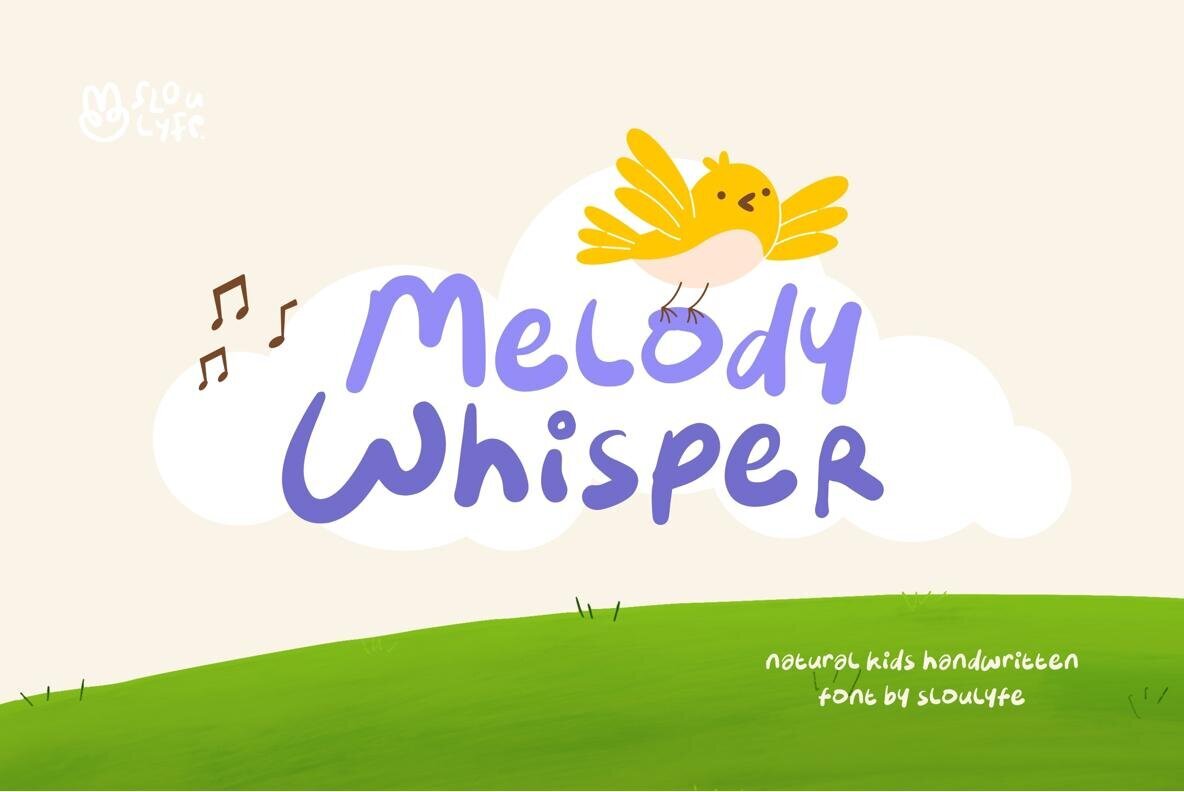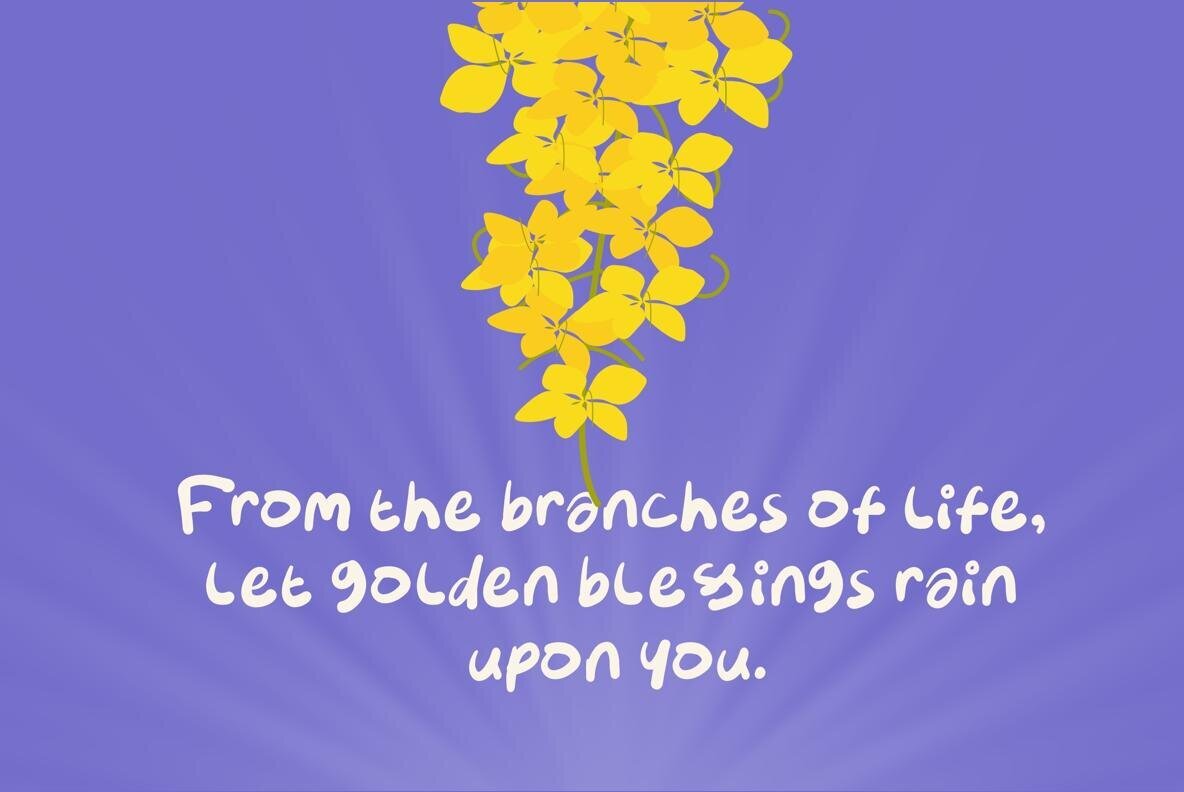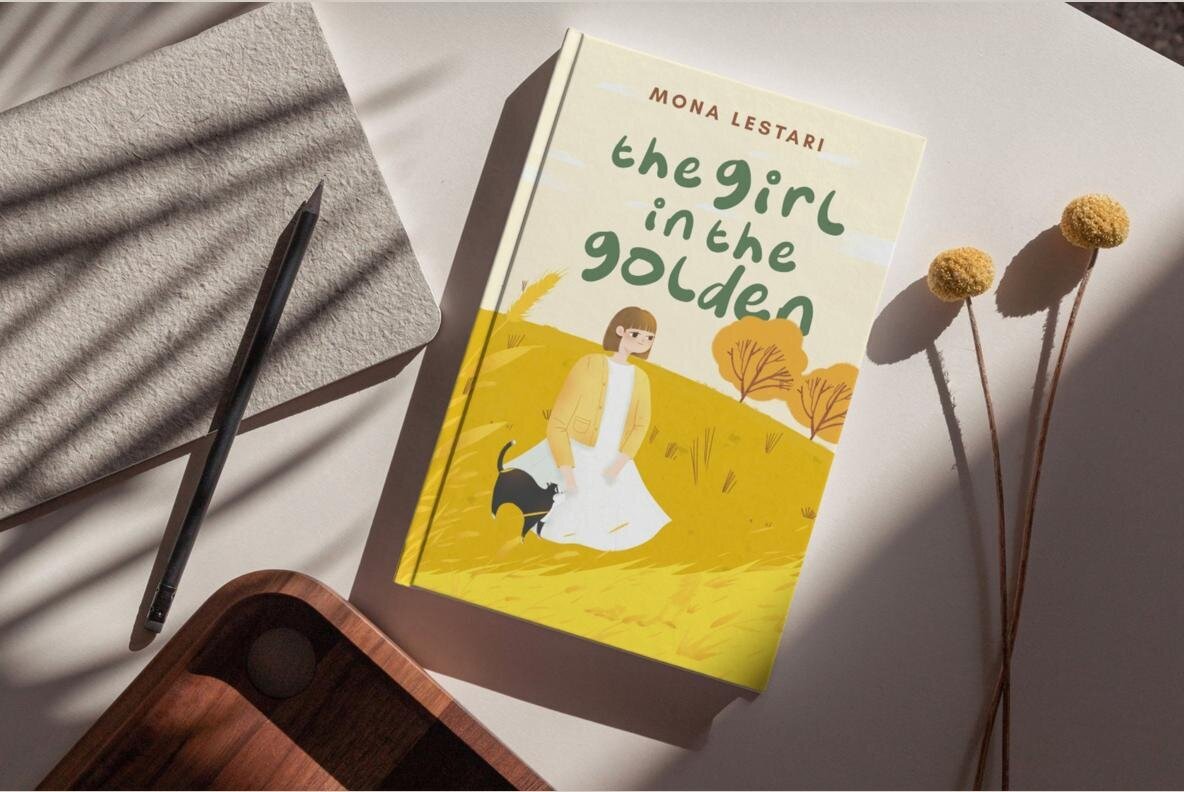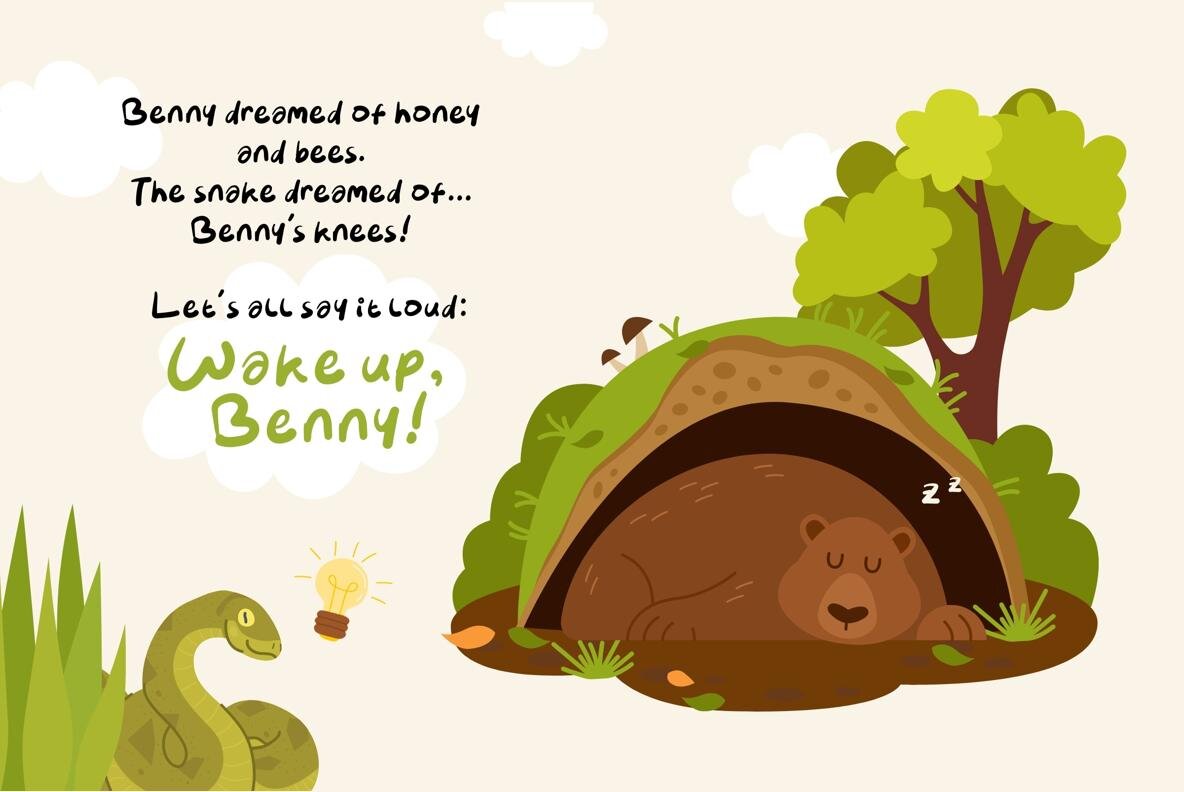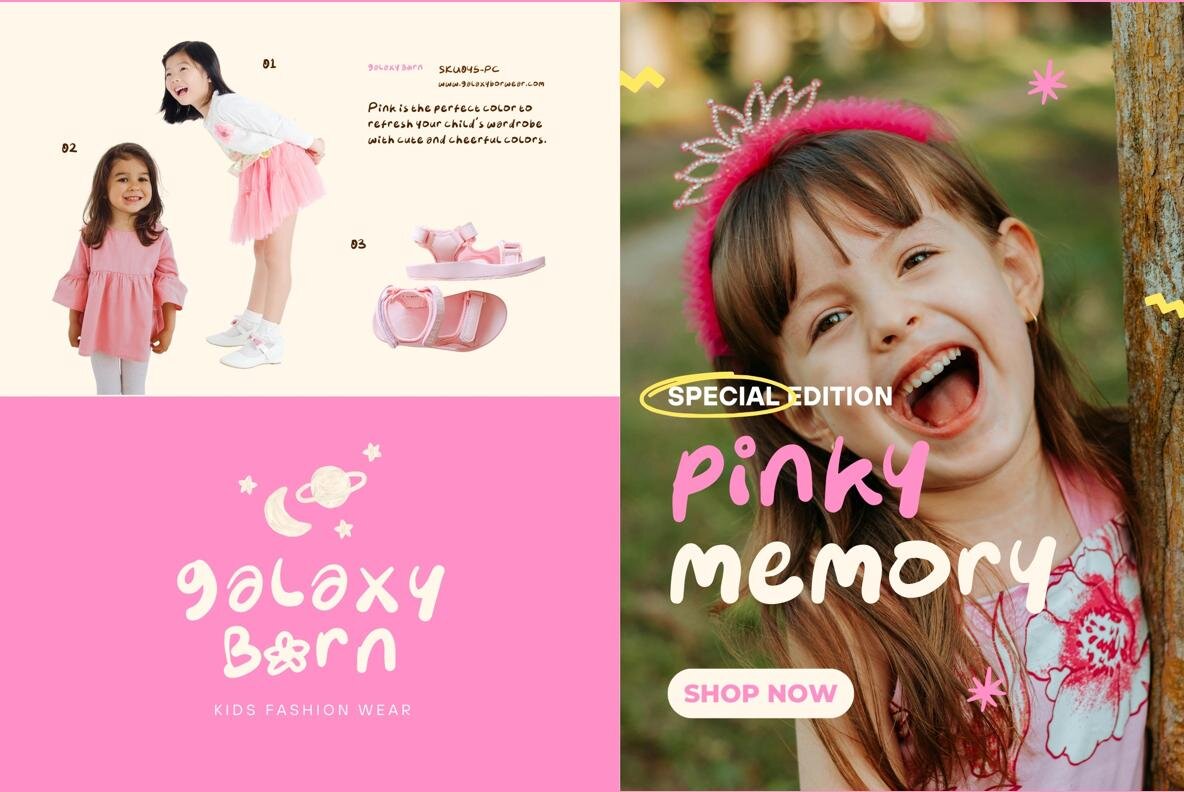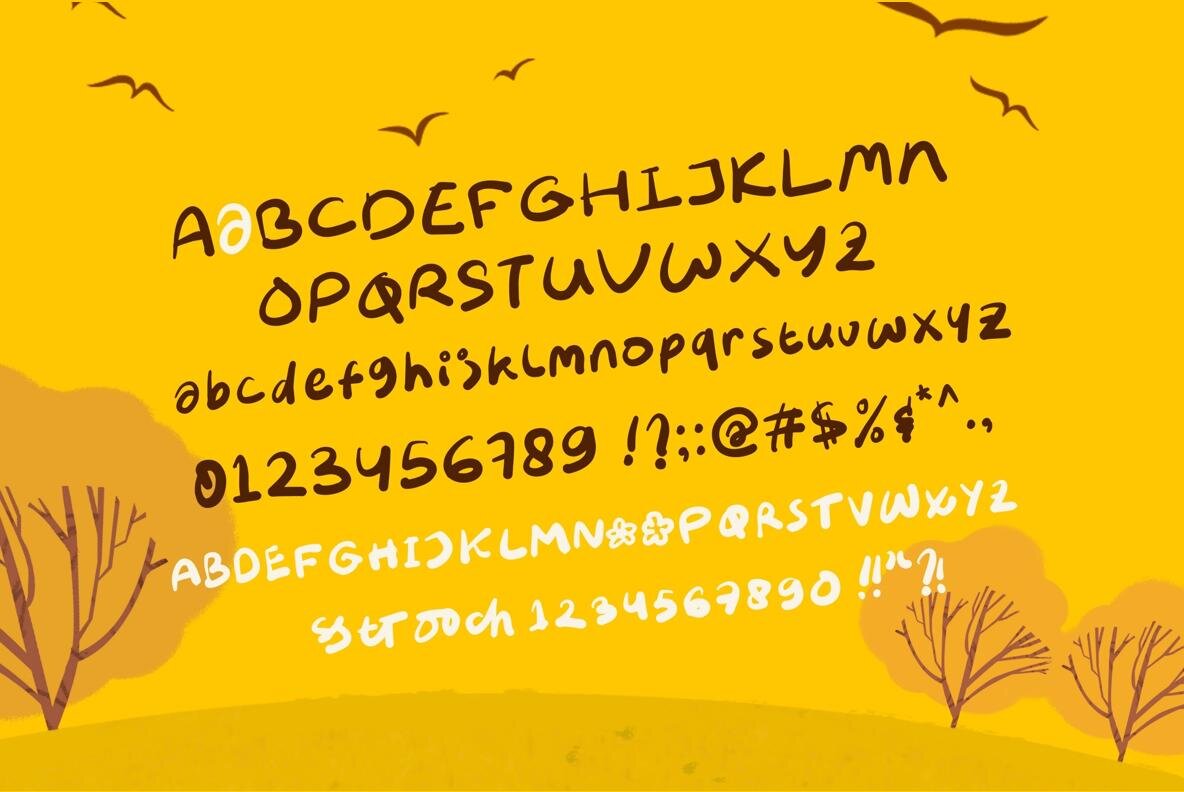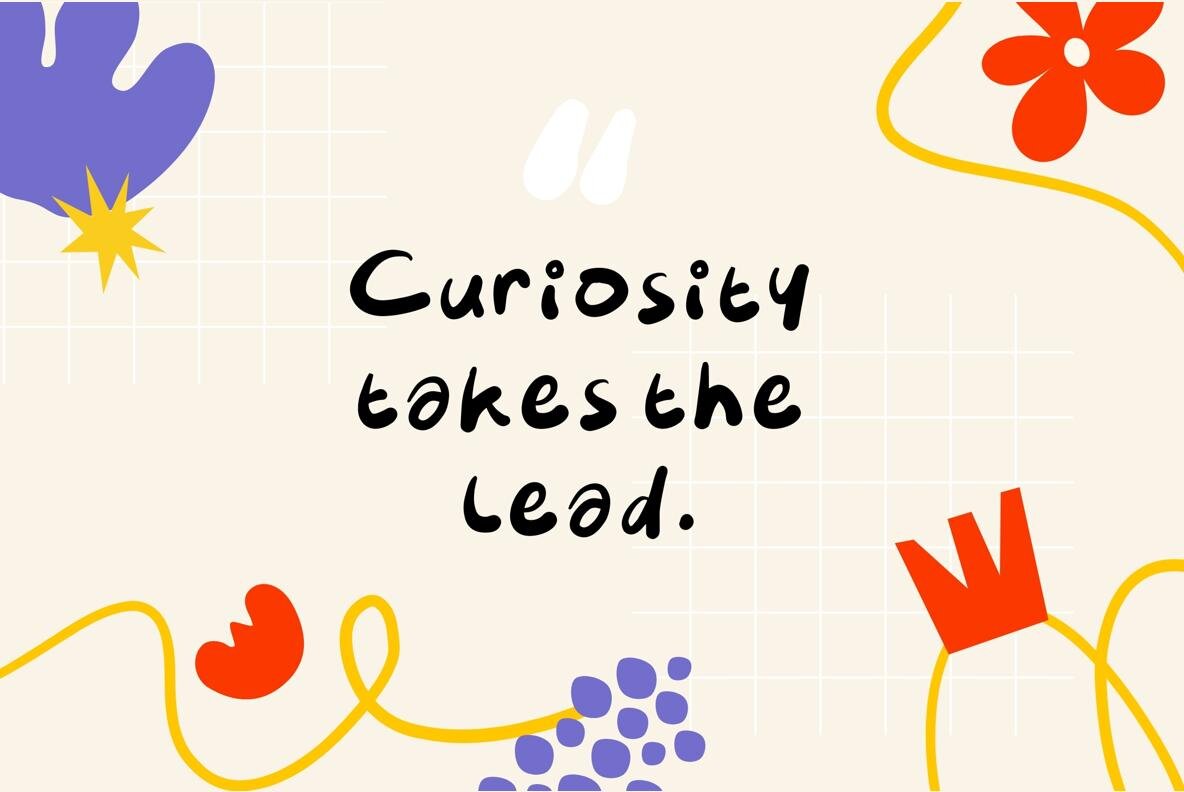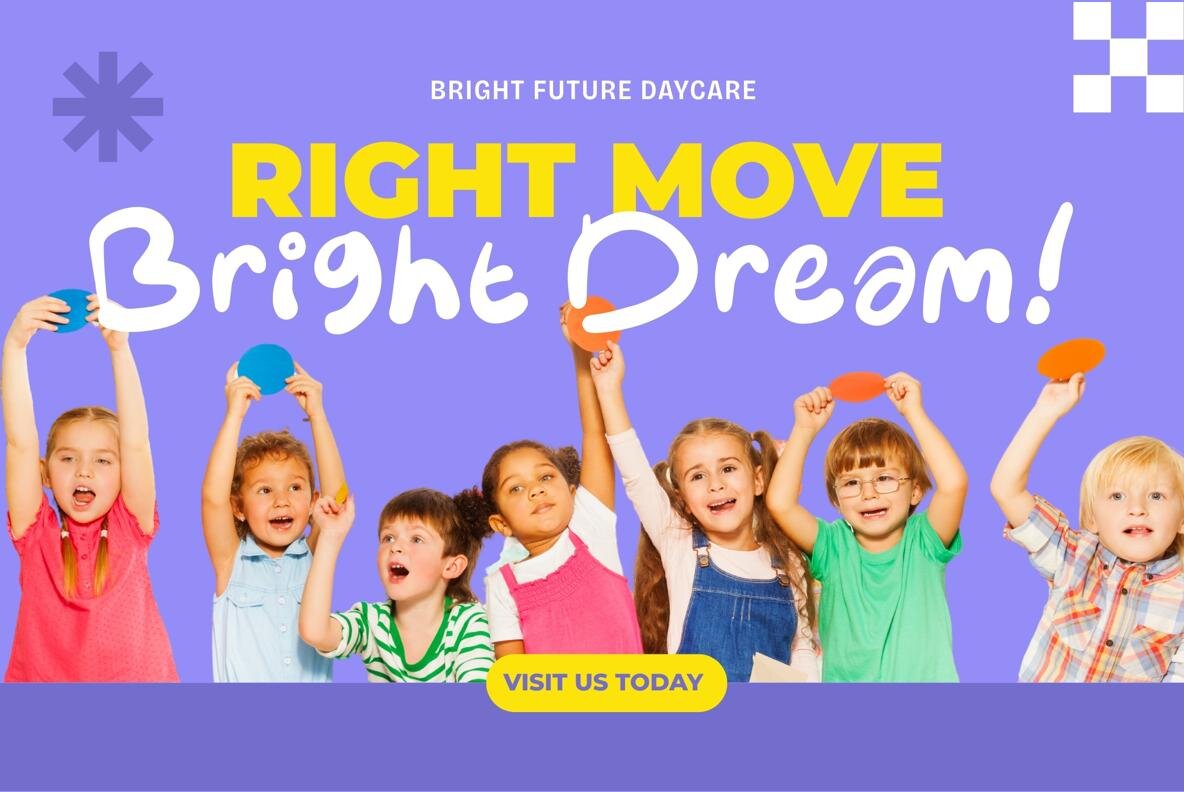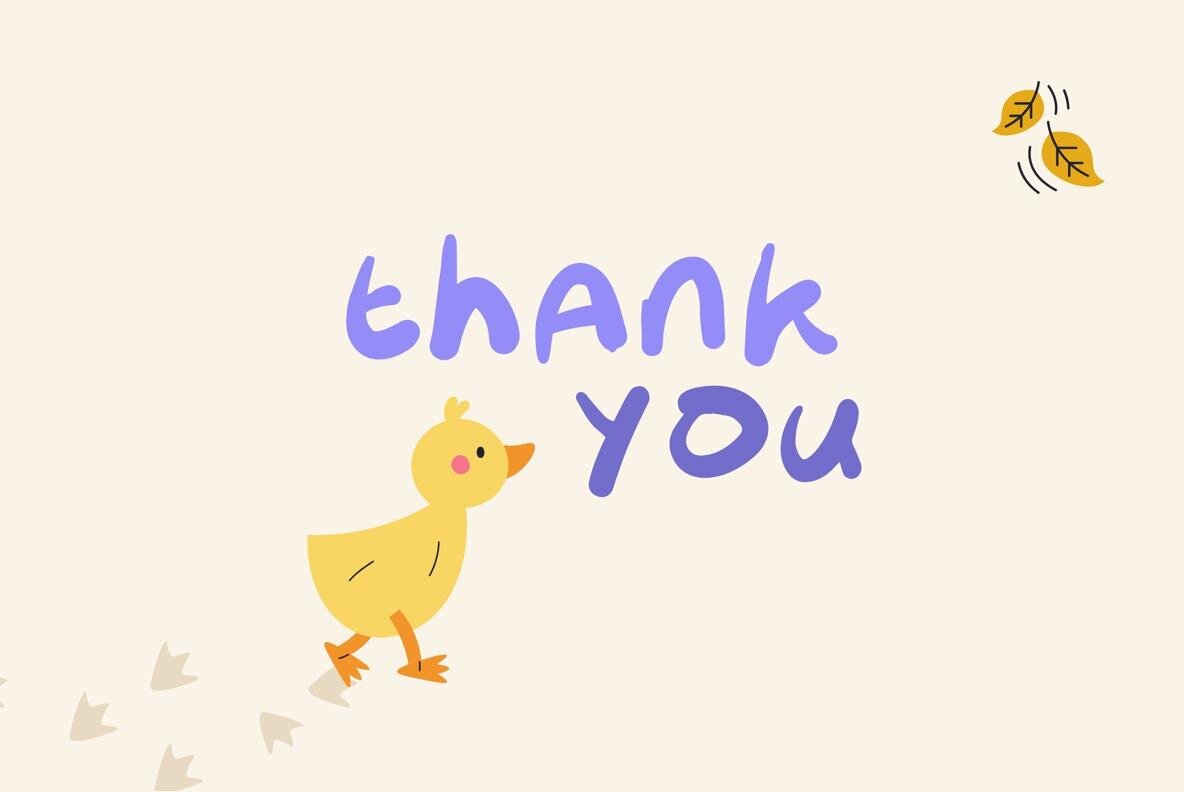
Melody Whisper Font
SL Melody Whisper Regular
Embrace the playful essence of childhood with Melody Whisper, a delightful handwritten font that embodies innocence and creativity. Its soft, rounded strokes and natural hand-drawn style bring a friendly and charming touch to any project. This font is perfect for children’s books, educational materials, packaging, and posters, infusing each design with a joyful and lighthearted vibe.Melody Whisper Handwritten Font